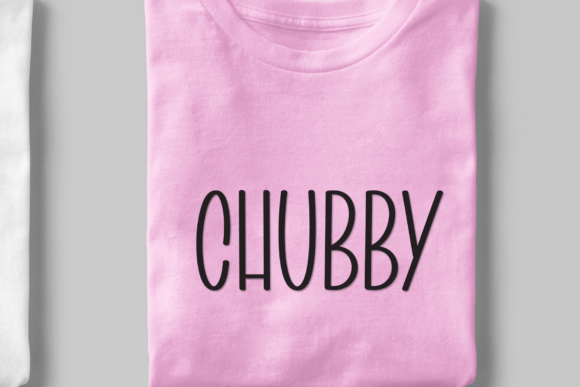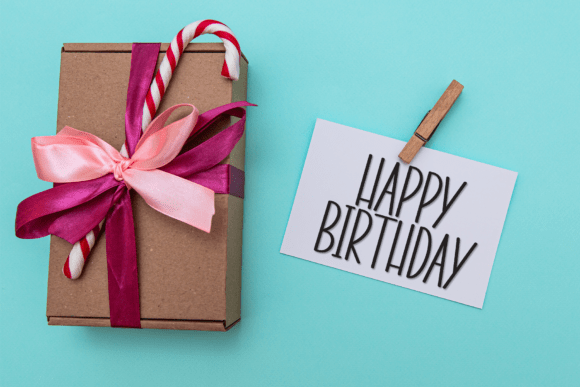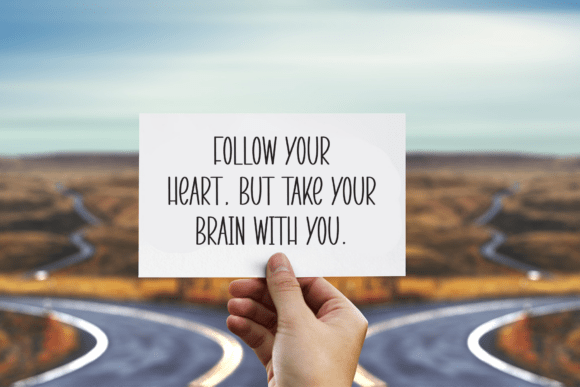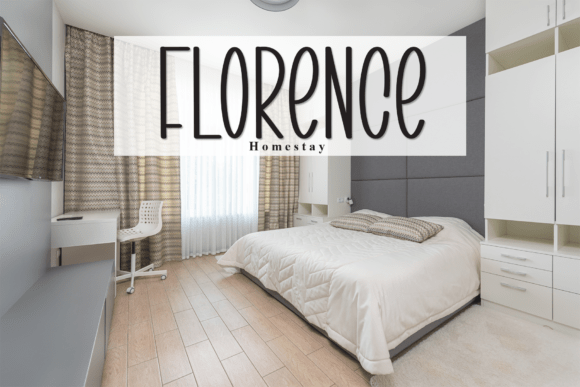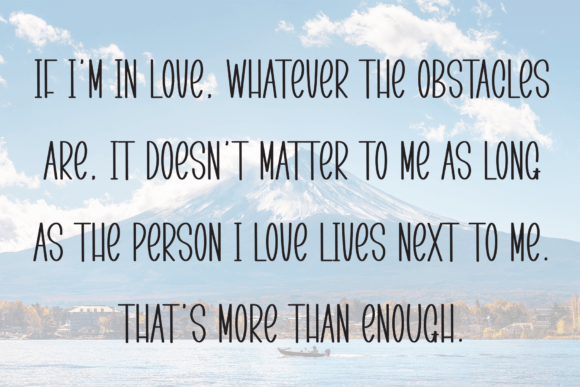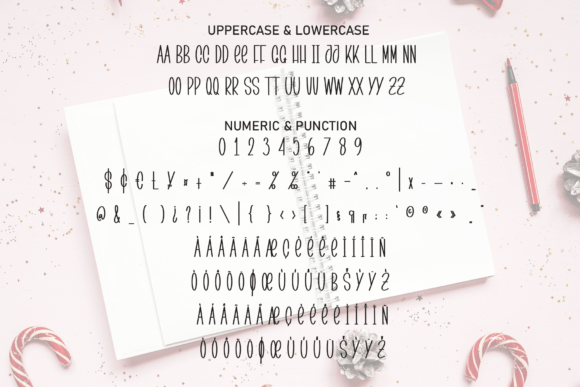
Introduction to Merry Planner Font
Have you ever been working on a creative project, pouring your heart and soul into it, and then that perfect font comes along and makes it all come together? For many designers, this is the magic moment when everything clicks, and the project transforms from good to great. For those who have experienced this, you know the value of having the right font at your fingertips.
Enter the Merry Planner Font, a delightful handwritten display font that adds a touch of whimsy and elegance to any design. With its alluring fusion of sweetness and warmth, this font makes every interaction personal, inviting, and memorable. Whether you’re working on a wedding invitation, a card, or any other creative project, the Merry Planner Font is a valuable resource that will help you infuse your designs with high-quality, playful charm.
Merry Planner Font
- High-quality design resource ideal for creative projects and planners.
- Perfect for creating digital planners, journals, and other printables with a unique and elegant design.
- Features a clear and readable font, suitable for body text and headings in creative projects.
Honest Review: Merry Planner Font
As a designer, I’m always on the lookout for high-quality design resources to elevate my creative projects. I recently came across the Merry Planner Font, and I’m excited to share my thoughts on it.
- ✨ High-quality design: The font is clean, crisp, and visually appealing, making it perfect for a variety of creative projects.
- ✨ Transparent background: The font’s transparent background makes it easy to layer over other design elements, giving you more flexibility in your designs.
- ⚠️ Limited character set: The font only includes a limited character set, which may not be suitable for projects that require a wide range of characters.
- ⚠️ Not suitable for large-scale text: While the font is great for small to medium-sized text, it may not be the best choice for large-scale text due to its relatively small font size.
Overall, I’m impressed with the Merry Planner Font. While it has some limitations, its high-quality design and transparent background make it a valuable resource for designers. If you’re looking for a free, high-quality font for your creative projects, the Merry Planner Font is definitely worth checking out.
Merry Planner Font
The Merry Planner Font is a high-quality design resource that can be used for a variety of creative projects. It features a transparent background, making it easy to customize and integrate into your designs.
The Merry Planner Font is perfect for a variety of creative projects, including:
- Designing social media graphics and posts.
- Creating custom presentations and documents.
- Developing branding and marketing materials.